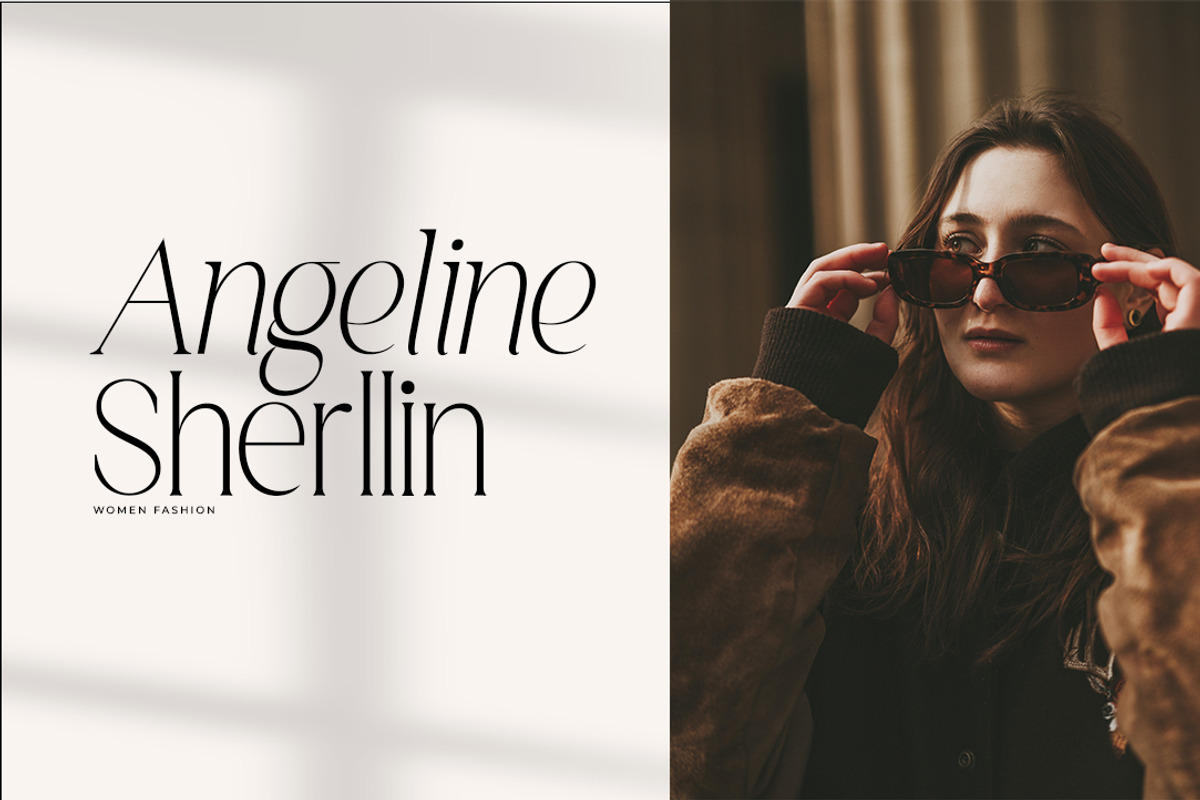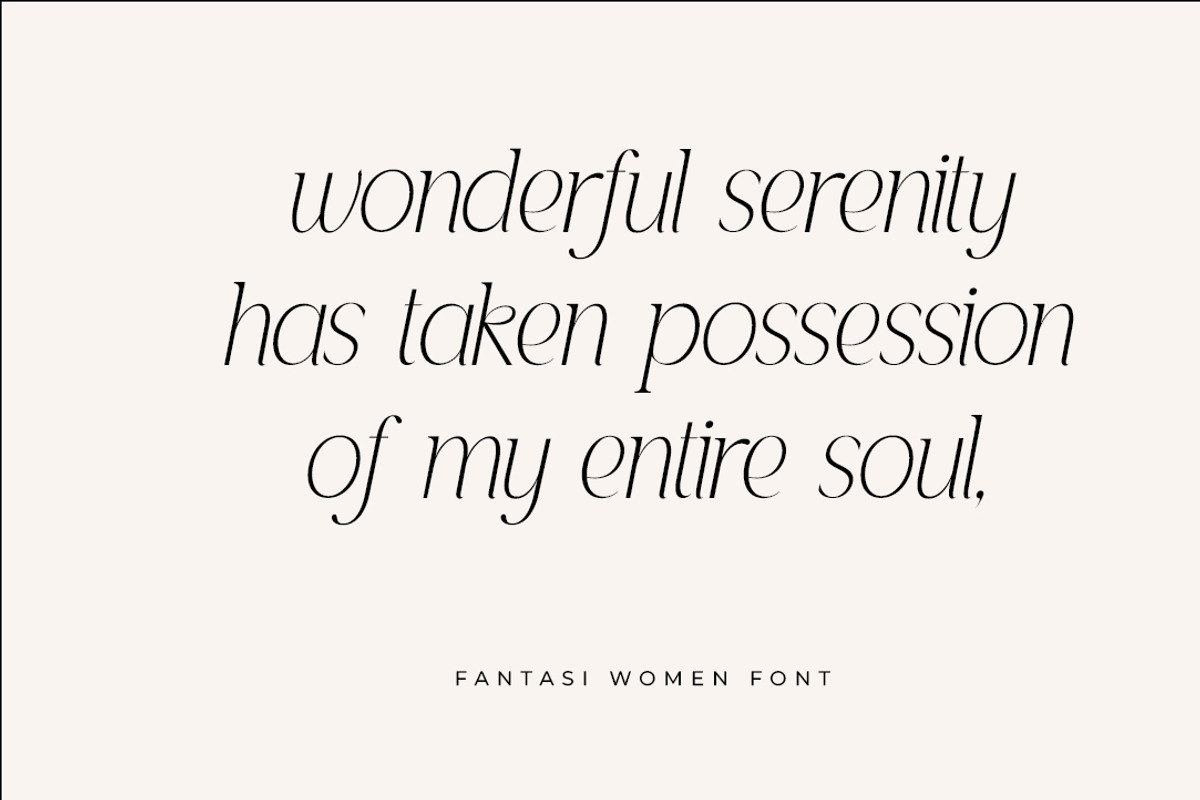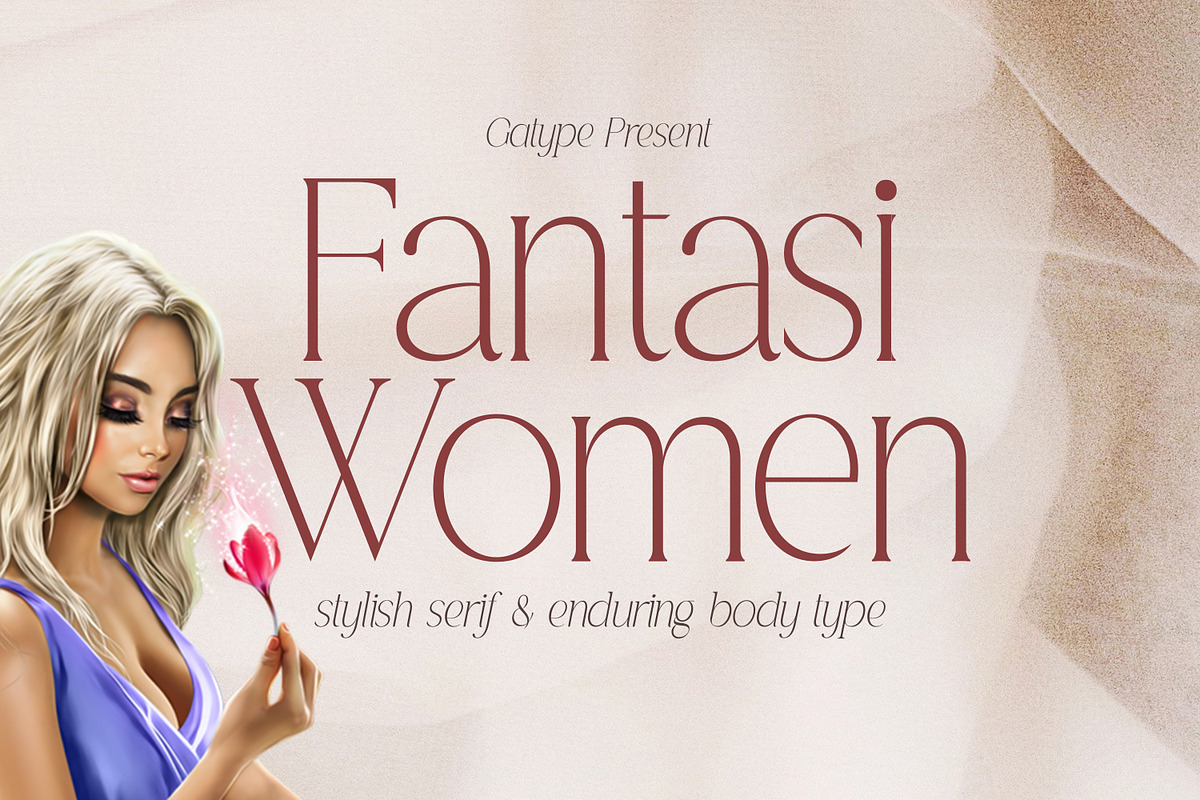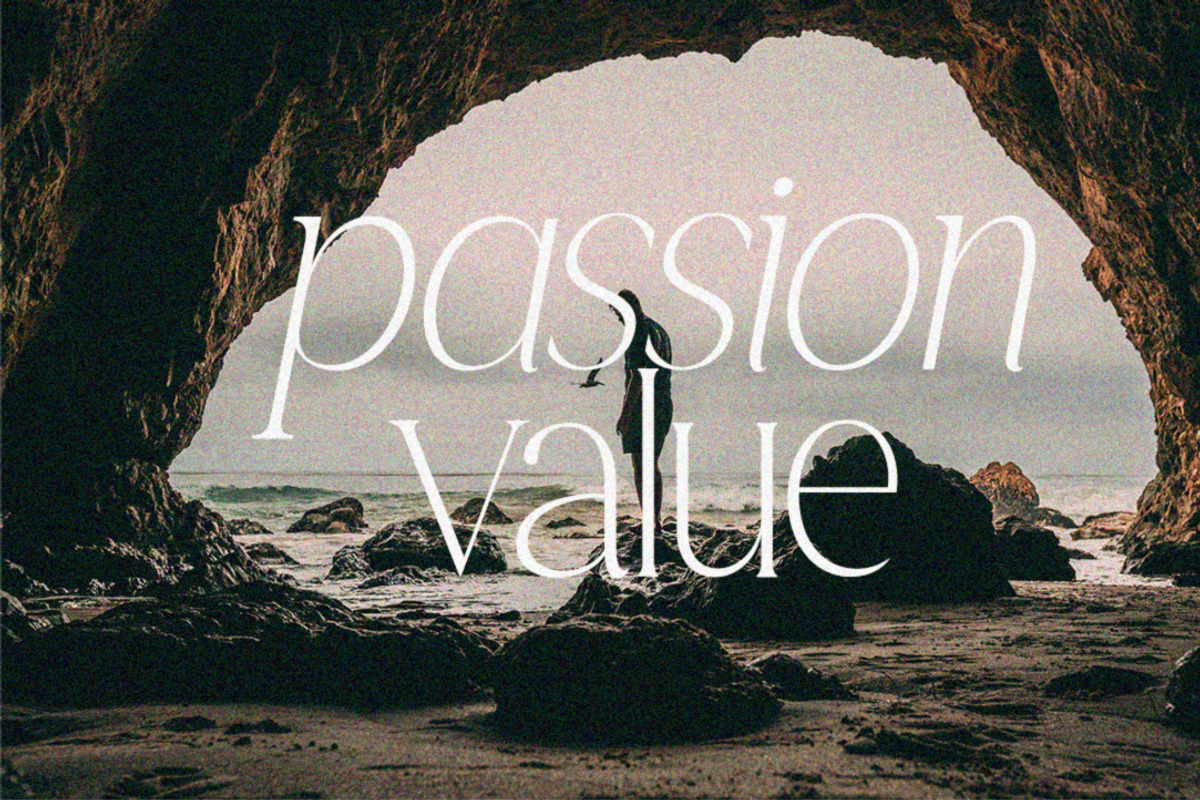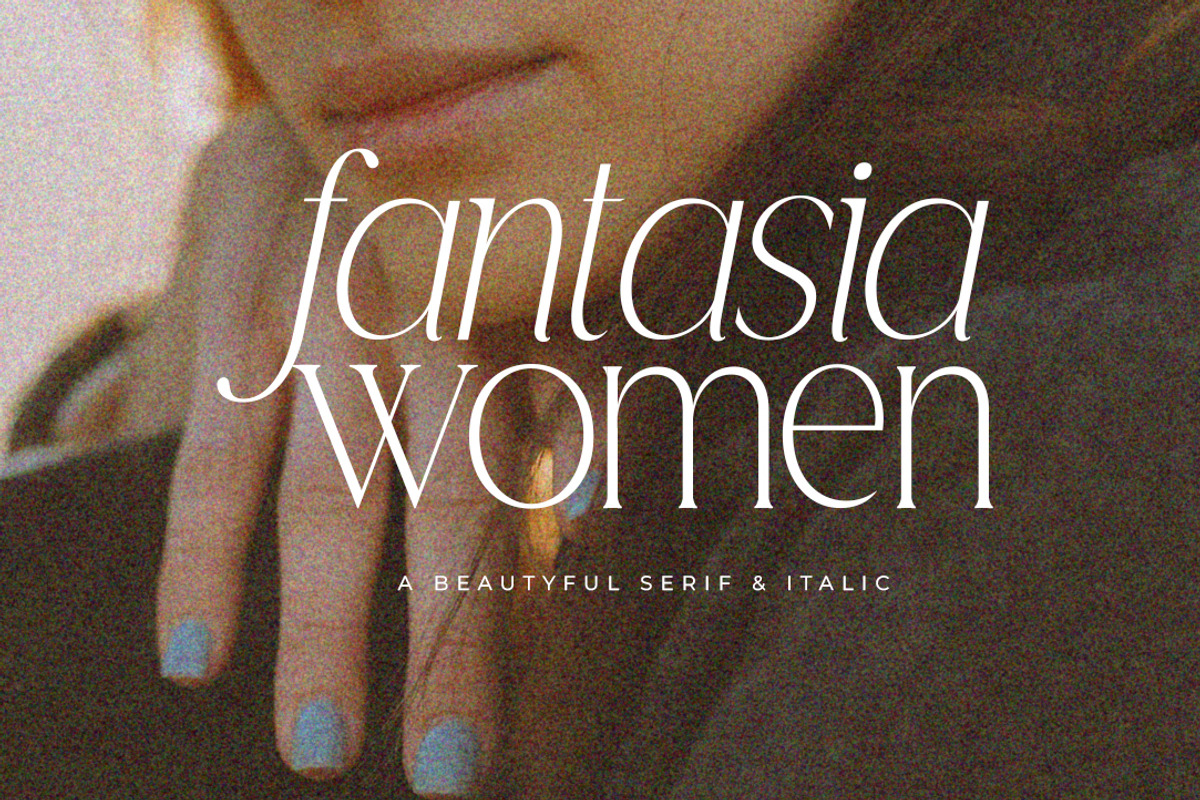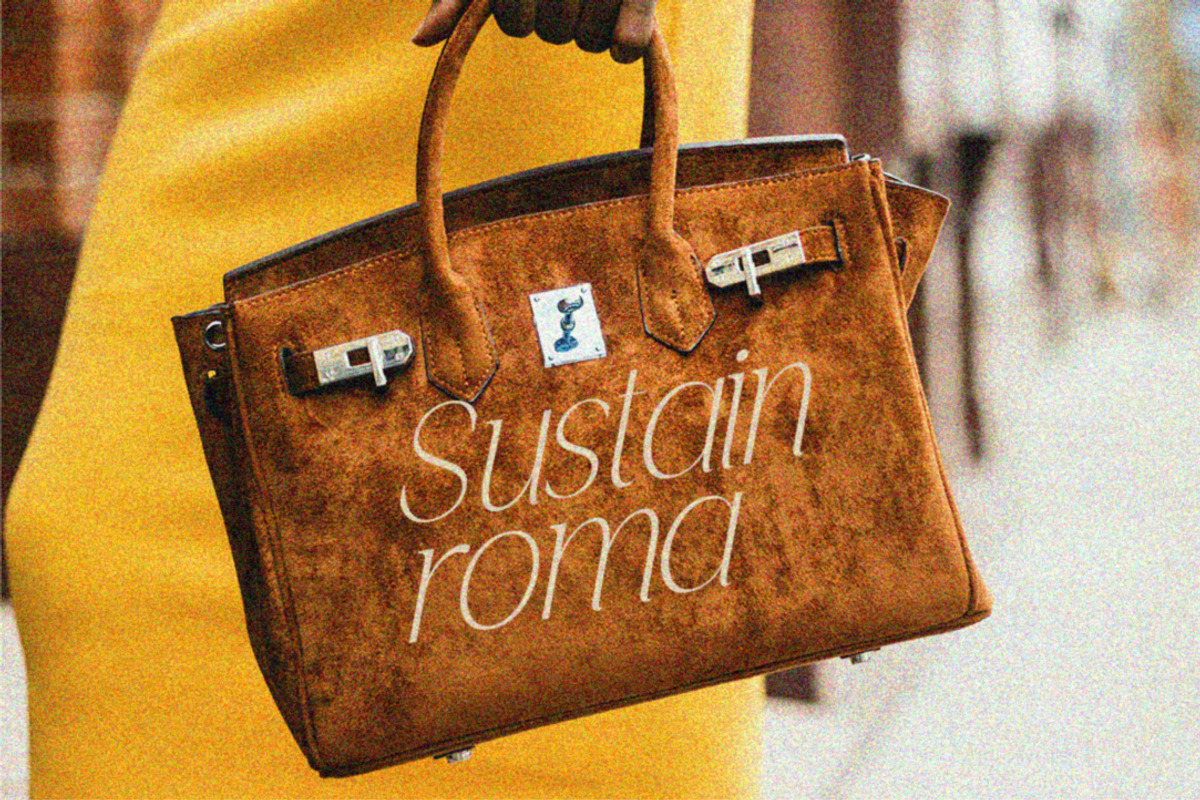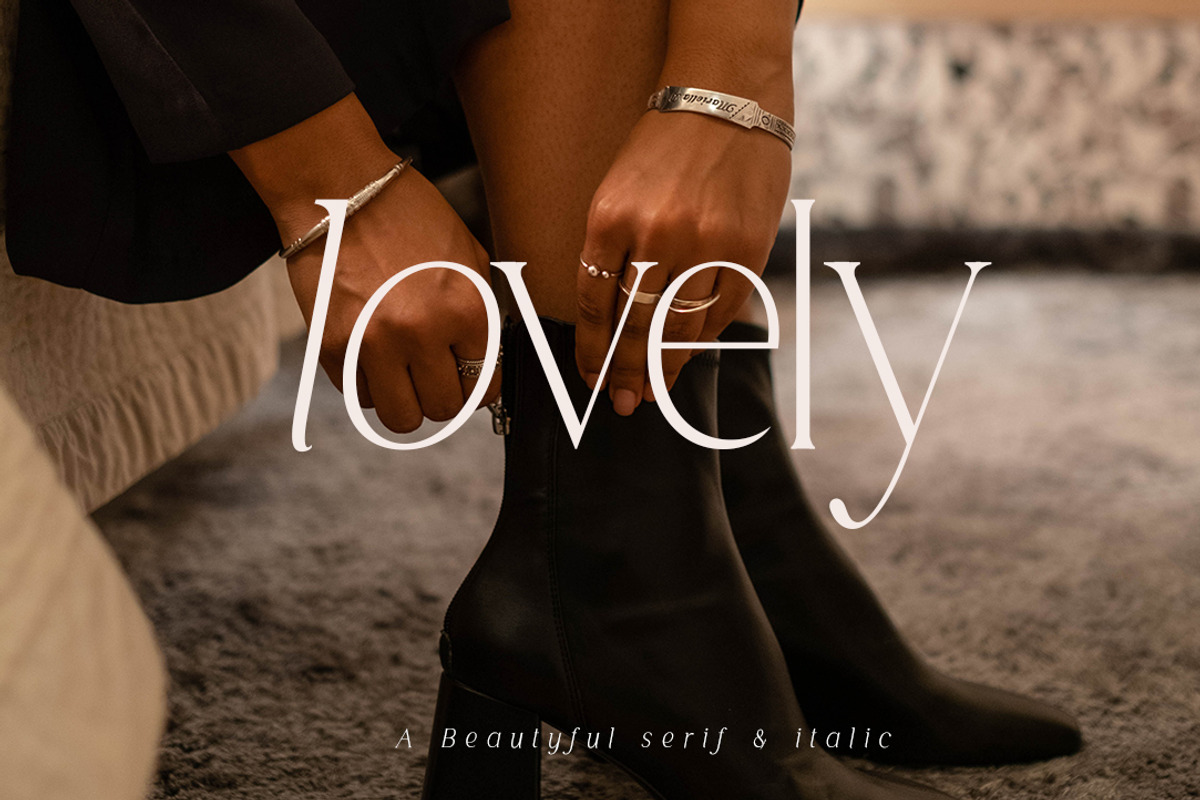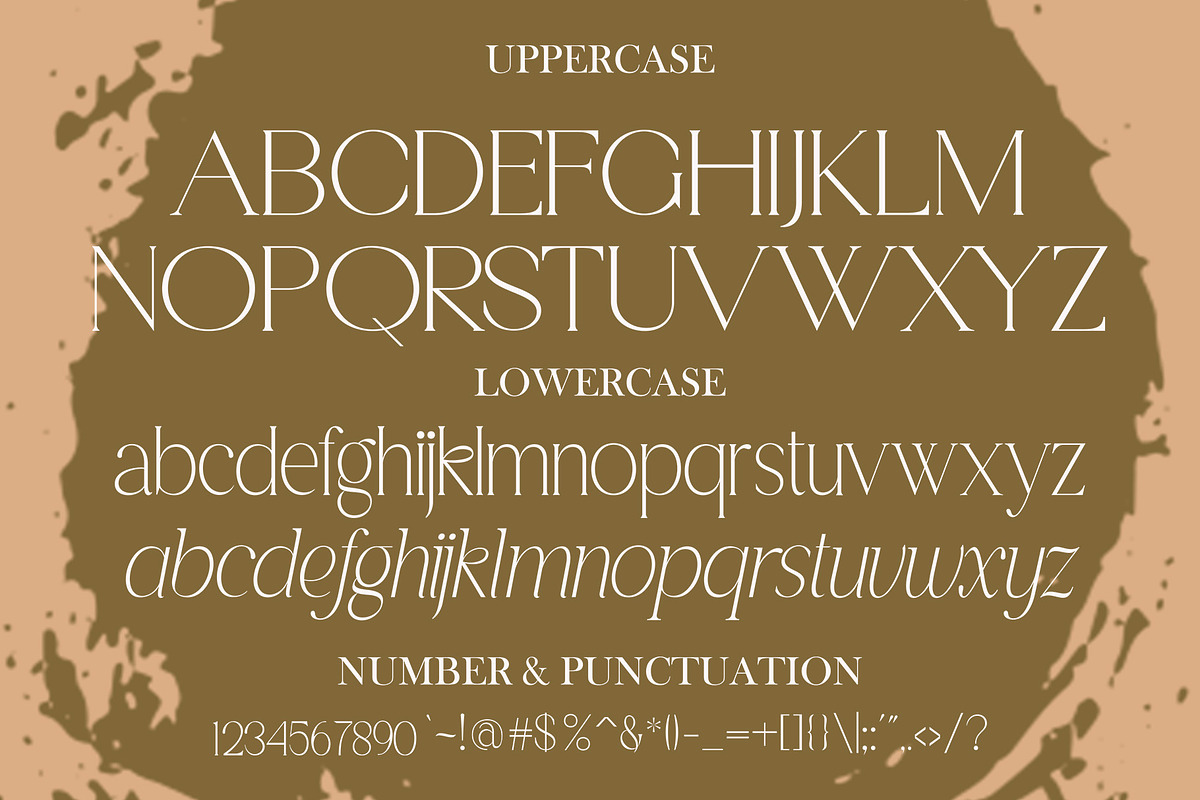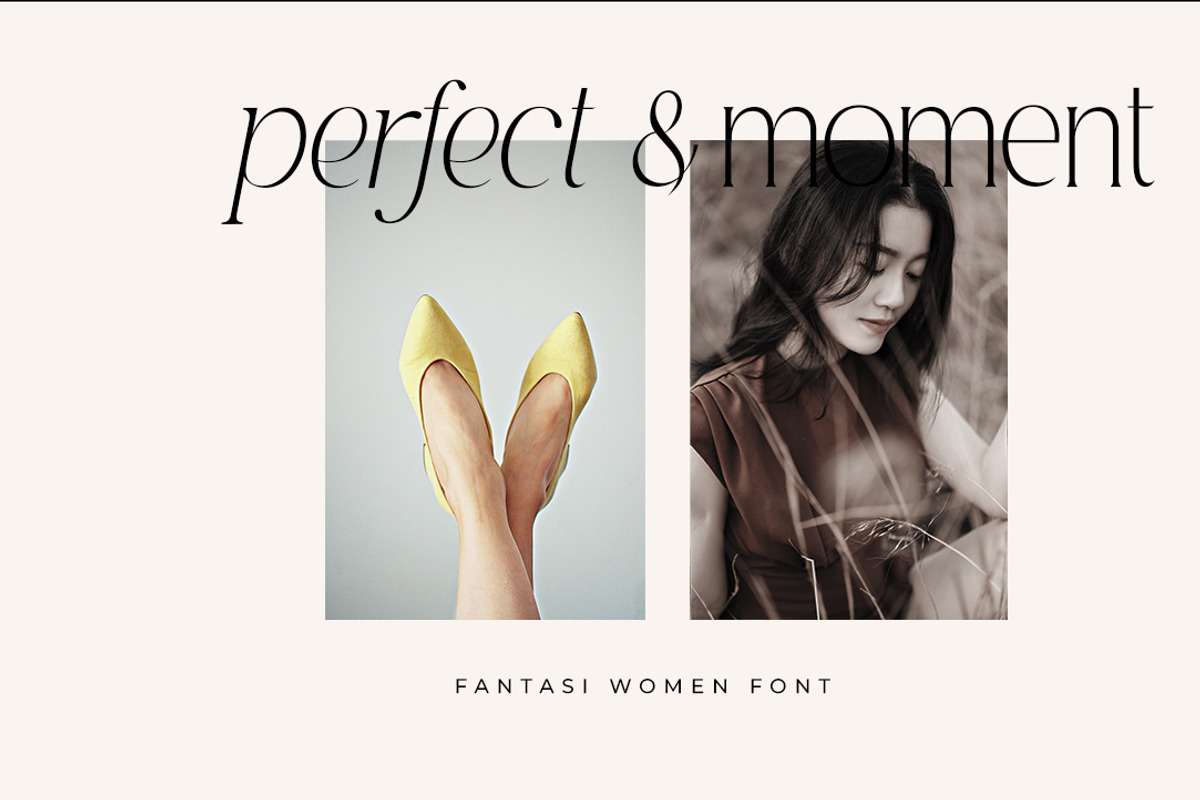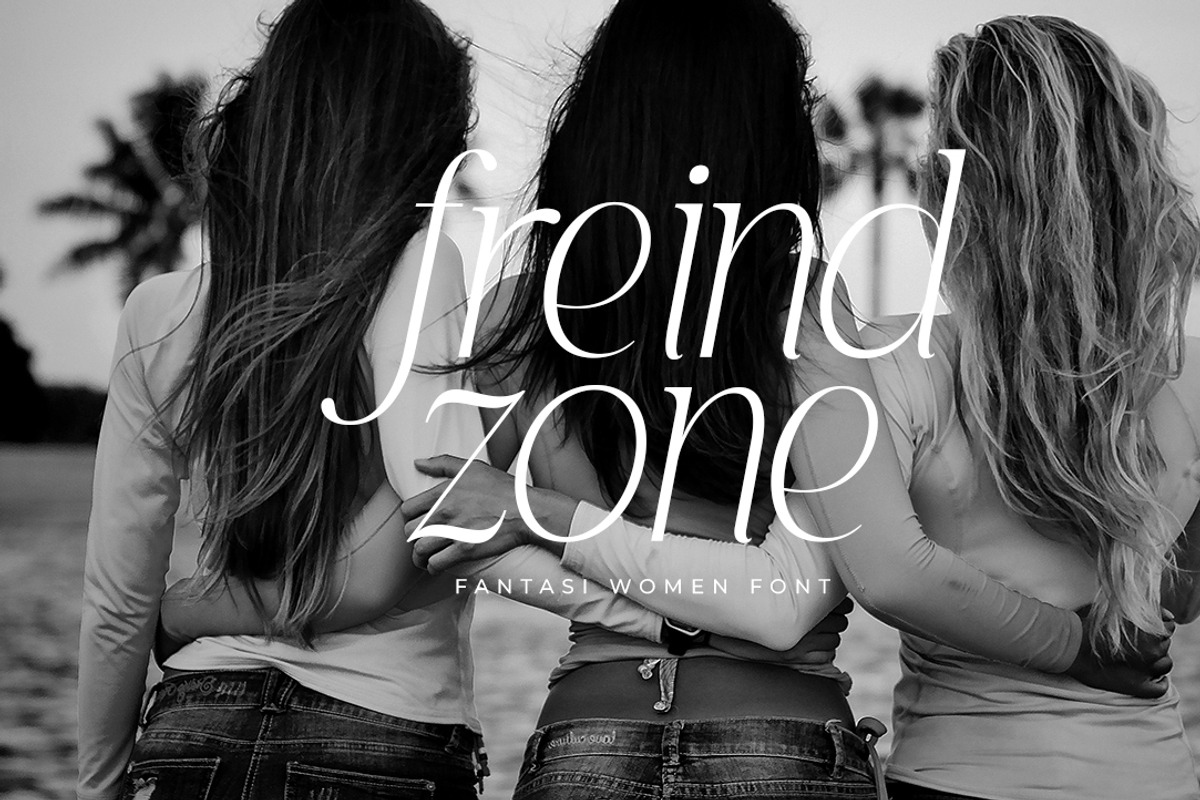
Fantasi Women
Fantasi Women - A modern serif font family with a unique and classy style. It looks amazing on any screen size and is easy to read in text size. Fantasi Women is a display font created primarily for headlines, titles and other short text and is perfect for advertising, vintage moodboards, branding, logo types, packaging, titles, editorial designs, and modern and vintage designs.
This font will add a fun and friendly touch to any of your projects! This font is PUA encoded which means you can access all the glyphs and sweeps easily and more. Have fun using Fantasy Women.